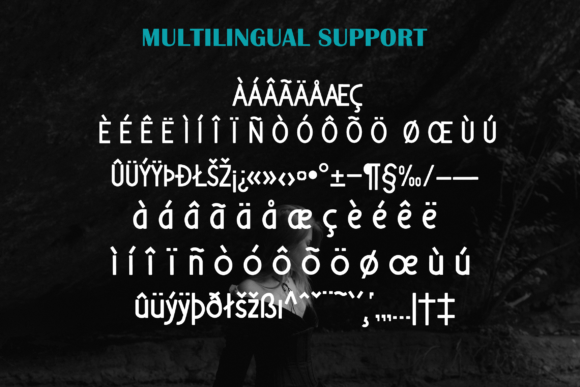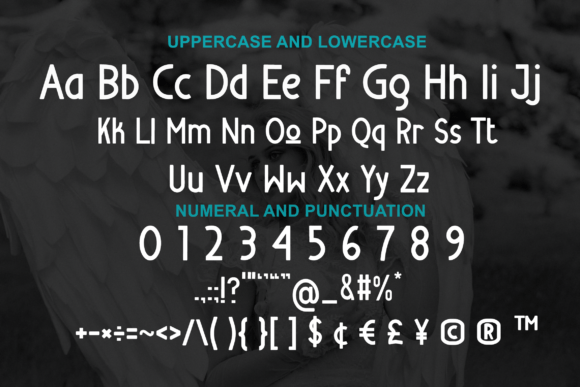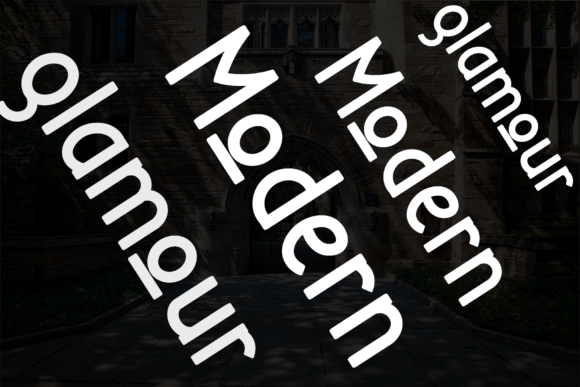
Introduction to Sekolahan Font
Who hasn’t scribbled notes in the margins of their favorite design book or sketched out ideas on a coffee-stained napkin? Those fleeting moments of creativity are what drive us to bring our ideas to life. For designers, having the right tools is essential to making those visions a reality. Enter the Sekolahan Font, a free, high-quality Sans Serif font that’s perfect for adding a touch of personality to your next creative project.
With its casual, playful vibe, the Sekolahan Font is a design resource that’s hard to resist. Whether you’re working on a branding project, designing a book cover, or creating a social media campaign, this versatile font is sure to add a touch of whimsy and sophistication. And the best part? It’s available for free download with a transparent background, making it easy to integrate into any design.
Key Features of Sekolahan Font
- High-quality design: Sekolahan Font is a premium design resource perfect for creative projects, offering a unique and stylish look.
- Transparent background: The font features a transparent background, making it ideal for use on various backgrounds and designs.
- High-resolution design: Sekolahan Font is designed at a high resolution, making it suitable for use in large-scale designs and prints.
- Unique characteristics: The font features a distinctive and creative style, making it an excellent choice for designers looking to add a touch of uniqueness to their projects.
Honest Review: Sekolahan Font
I recently stumbled upon the Sekolahan Font, and I must say, it’s a great addition to my design resources. This font is perfect for a creative project that requires a unique touch. The high quality of the font is immediately noticeable, and it’s definitely a great value for free.
What works well: ✨ The Sekolahan Font has a clean and modern design that is perfect for digital products. The transparent background makes it easy to use on any background. It’s also available for free download, which is a huge plus.
What doesn’t work so well: ⚠️ The font family is relatively small, so you may need to use it in conjunction with other fonts to achieve the desired look. Additionally, the font may not be suitable for projects that require a lot of customization.
Here are some key features of the Sekolahan Font:
- Clean and modern look
- Available for digital use
Overall, I’m impressed with the Sekolahan Font. It’s a great resource for designers who want to add a unique touch to their creative projects. While it may have some limitations, it’s definitely worth considering for your next design project.
Sekolahan Font
Tips for Getting the Most Out of Sekolahan Font
To get the most out of the Sekolahan Font, try the following:
- Experiment with different font sizes and styles.
- Combine the font with other design elements for a unique look.
- Use the font in a variety of creative projects, such as logos, posters, and infographics.
The Sekolahan Font is perfect for a variety of creative projects, including:
- Logos and branding materials.
- Posters and flyers.
- Infographics and data visualizations.
- Presentations and documents.
Q: Can I customize Sekolahan Font to fit my design project’s requirements?
Yes, you can customize Sekolahan Font to fit your design project’s requirements. The font is designed to be highly customizable, and you can adjust its size, color, and style to match your design needs. You can also use the font in combination with other design elements to create a unique and eye-catching design.